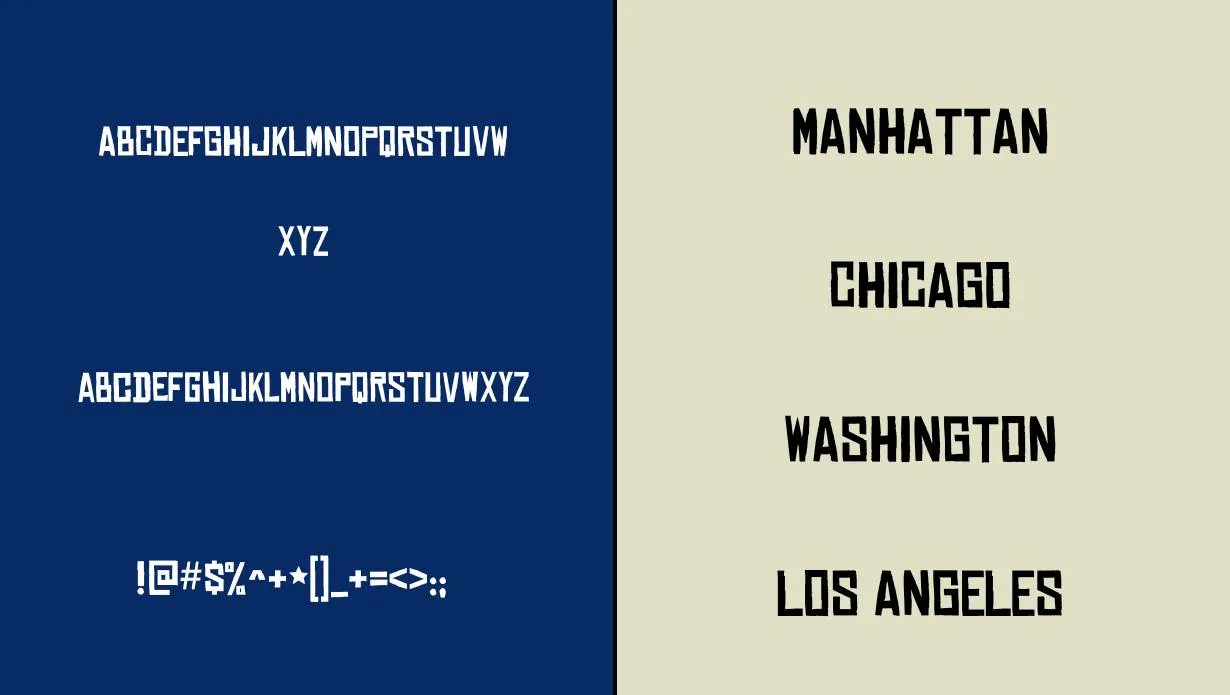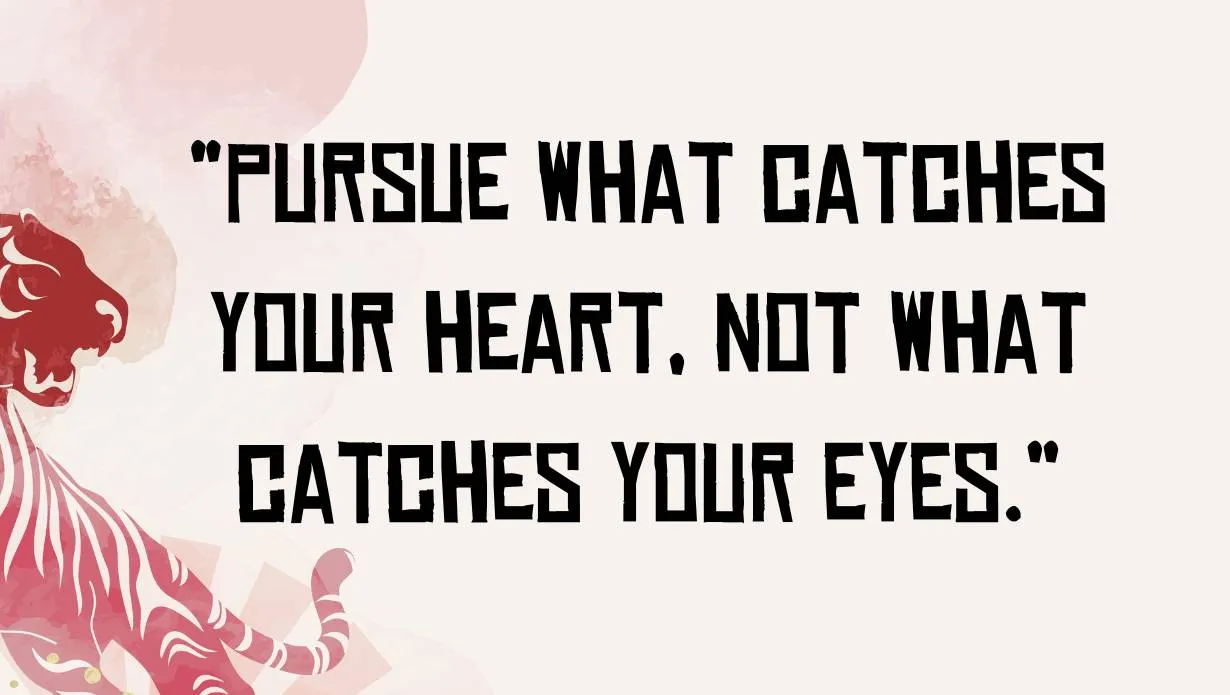
The Chinese Rocks Font belongs to the display typeface family that was publicized in the early 19th century. It was actually inspired by the hand-cut- rubber stamp writing that was found on the Chinese export containers.
This typeface style gets a new unique shape after making a pair with canela font.
| Name | Chinese Rocks Font |
| Designer | Typodermic Fonts |